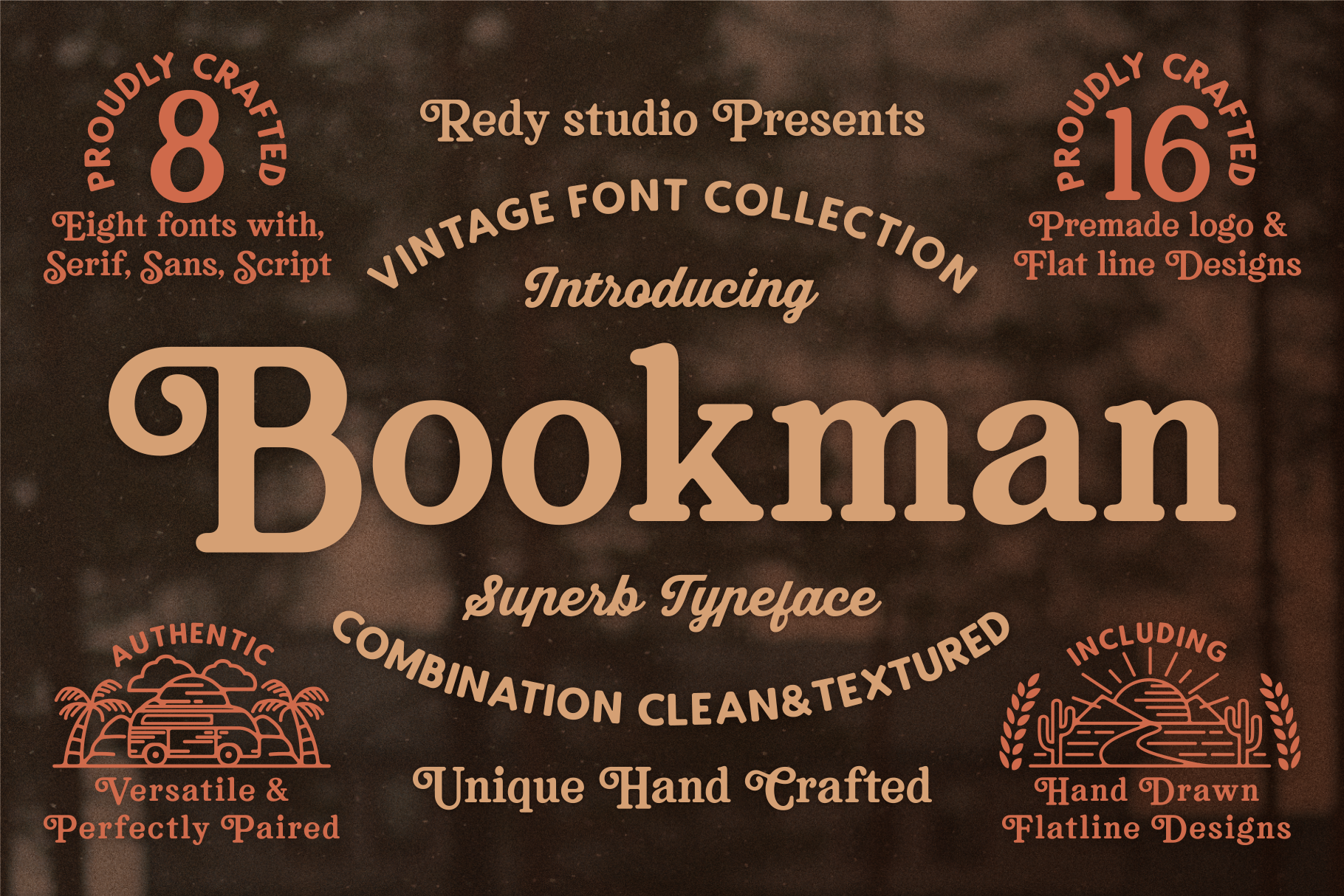
Bookman Font Collection
Introducing Bookman Font Collection includes 8 fonts that have different type (Serif, Sans, Script) and have two styles (Clean and Press). Bookman Font Collection was designed carefully to create elegant typographic works. Furthermore the product contains a set of 16 editable logo templates for Adobe Illustrator (CS & CC) and includded hand-drawn Flatline Designs. It would be a perfect choice to design t-shirt, Logos, posters and magazine prints, eye-pleasing typographic designs and more.